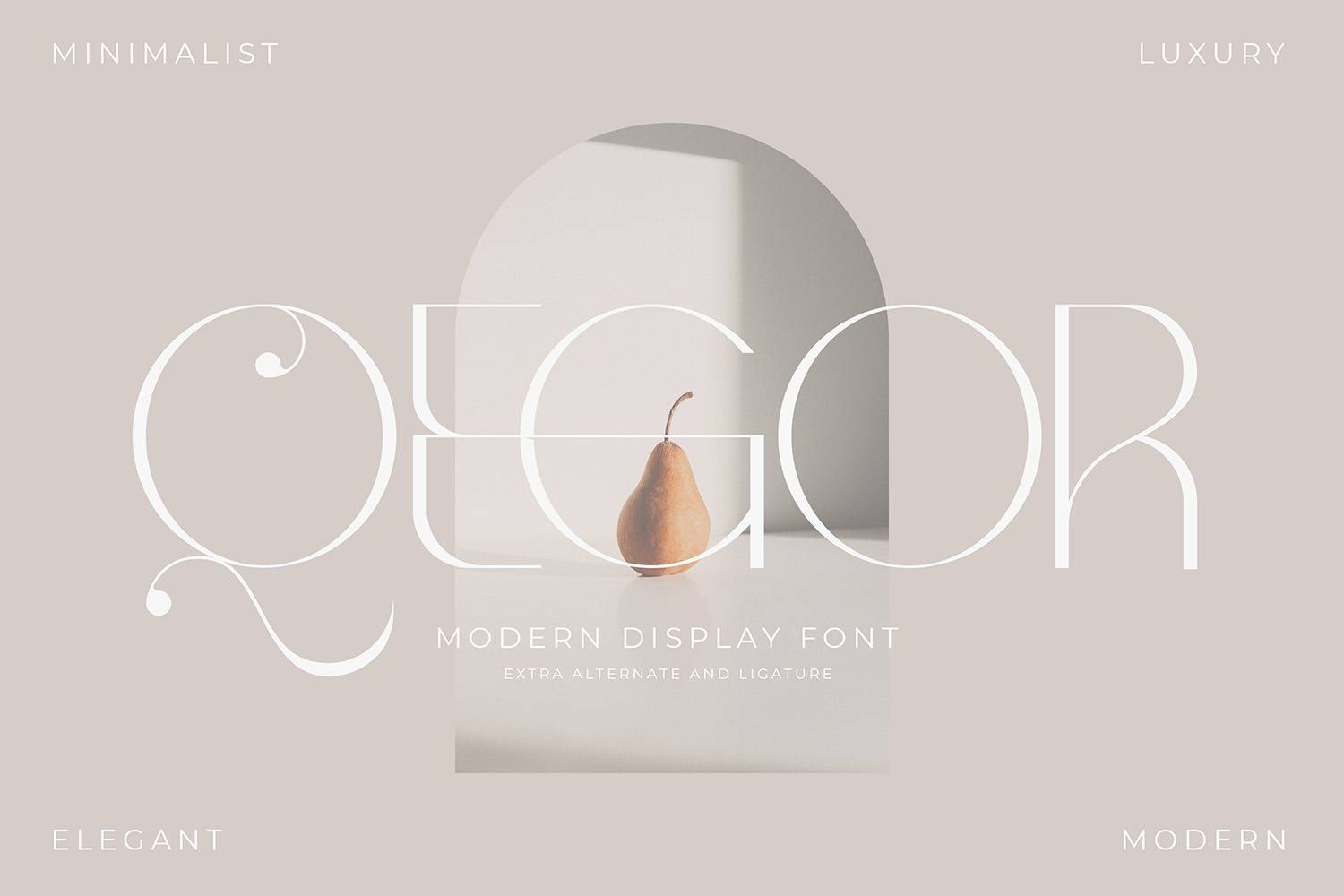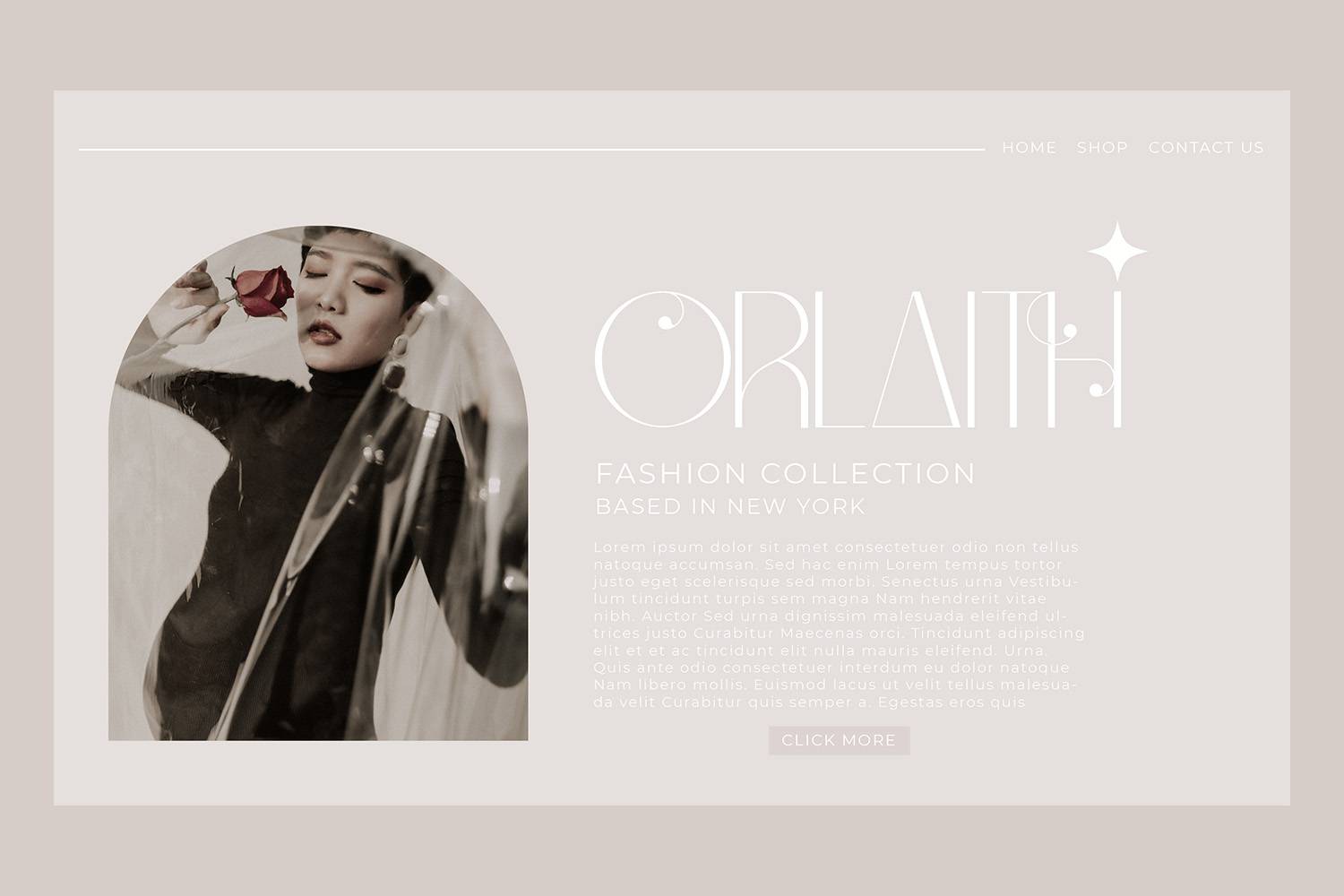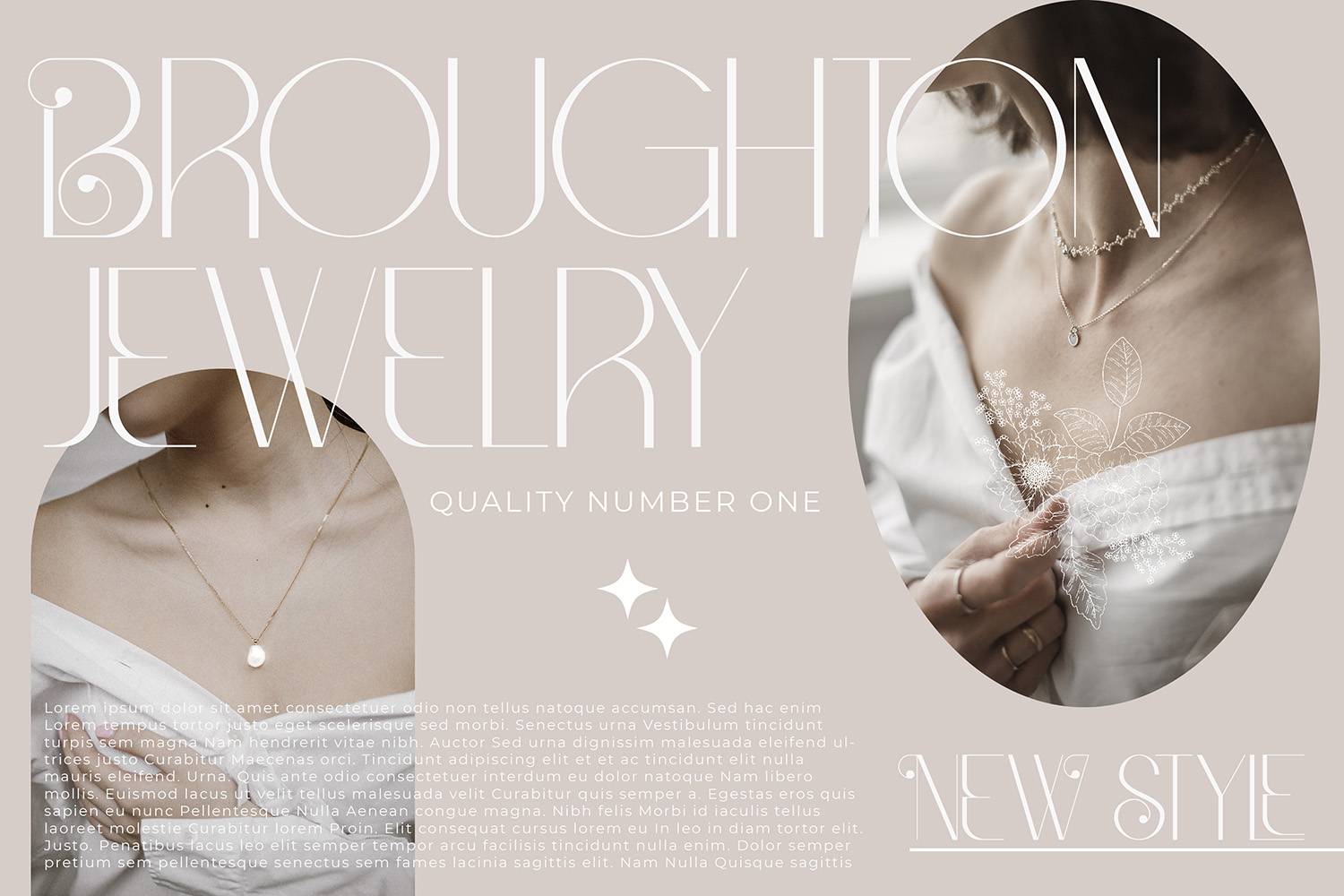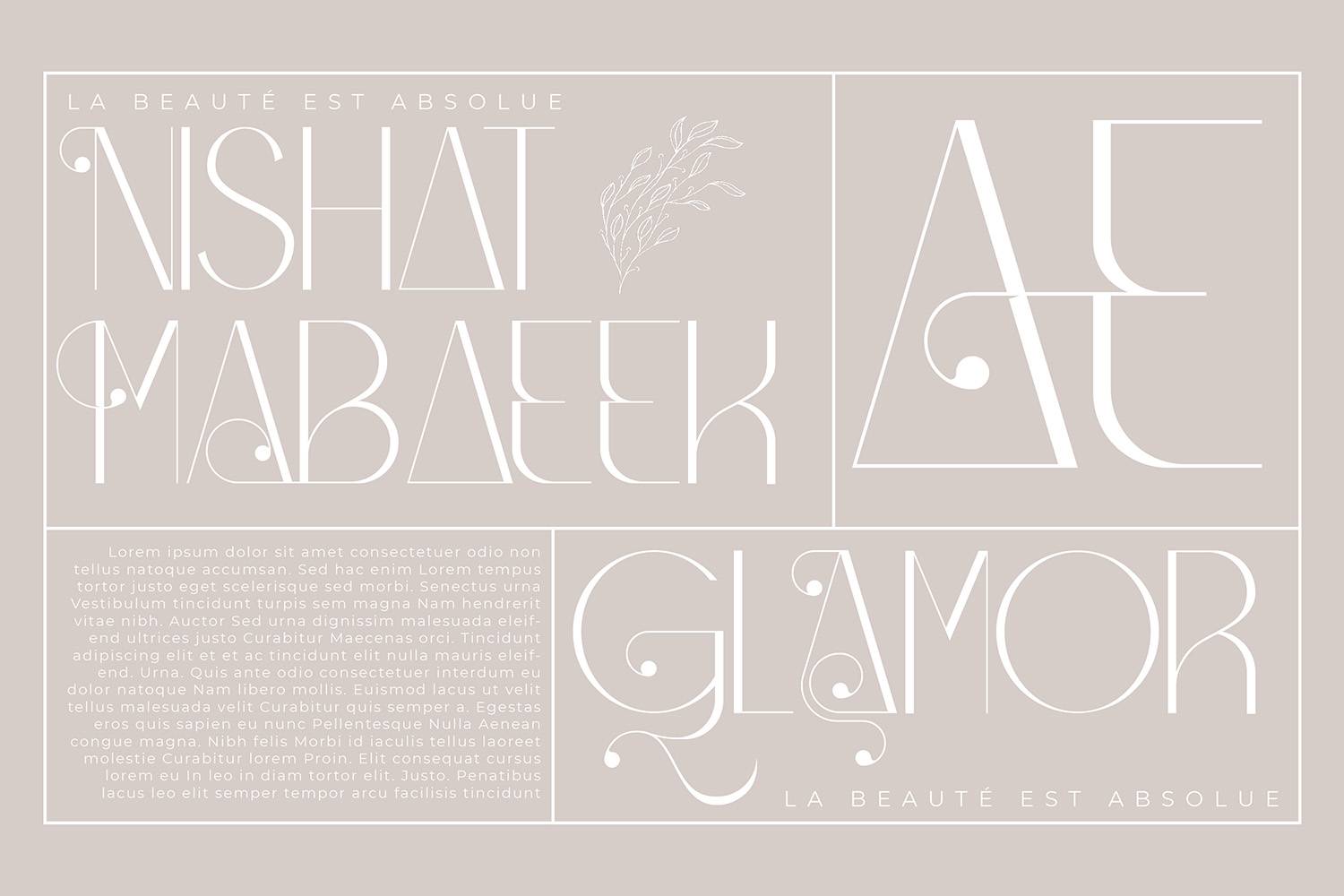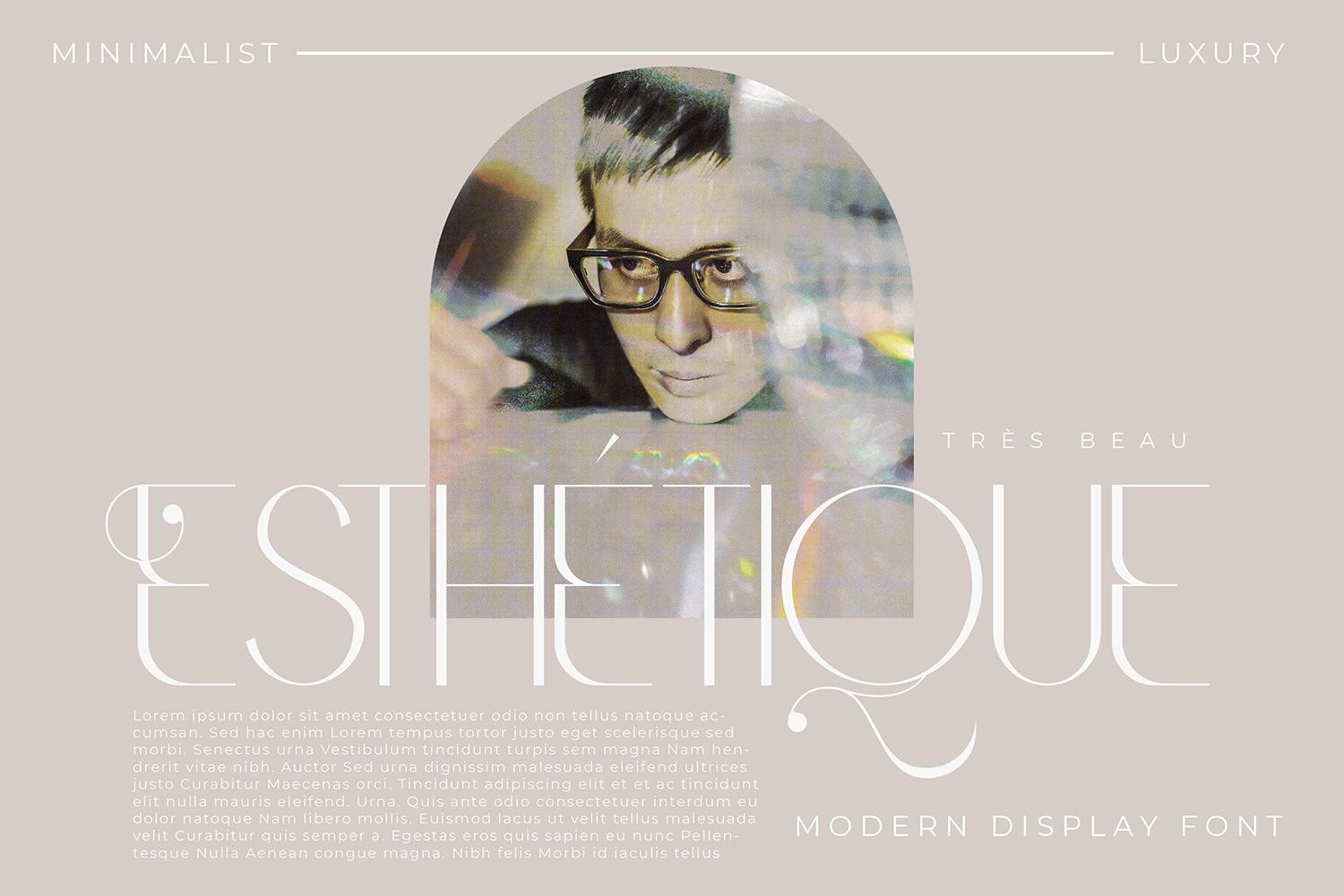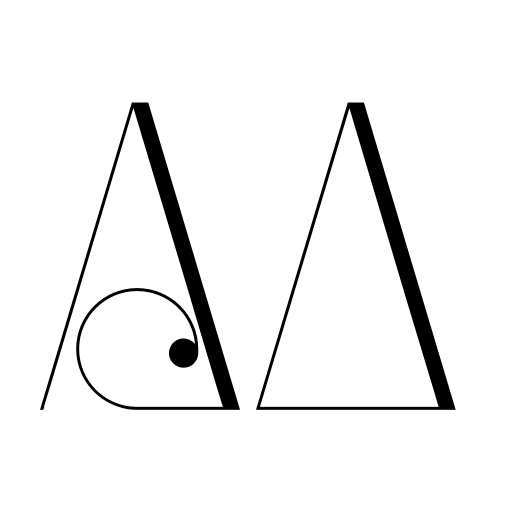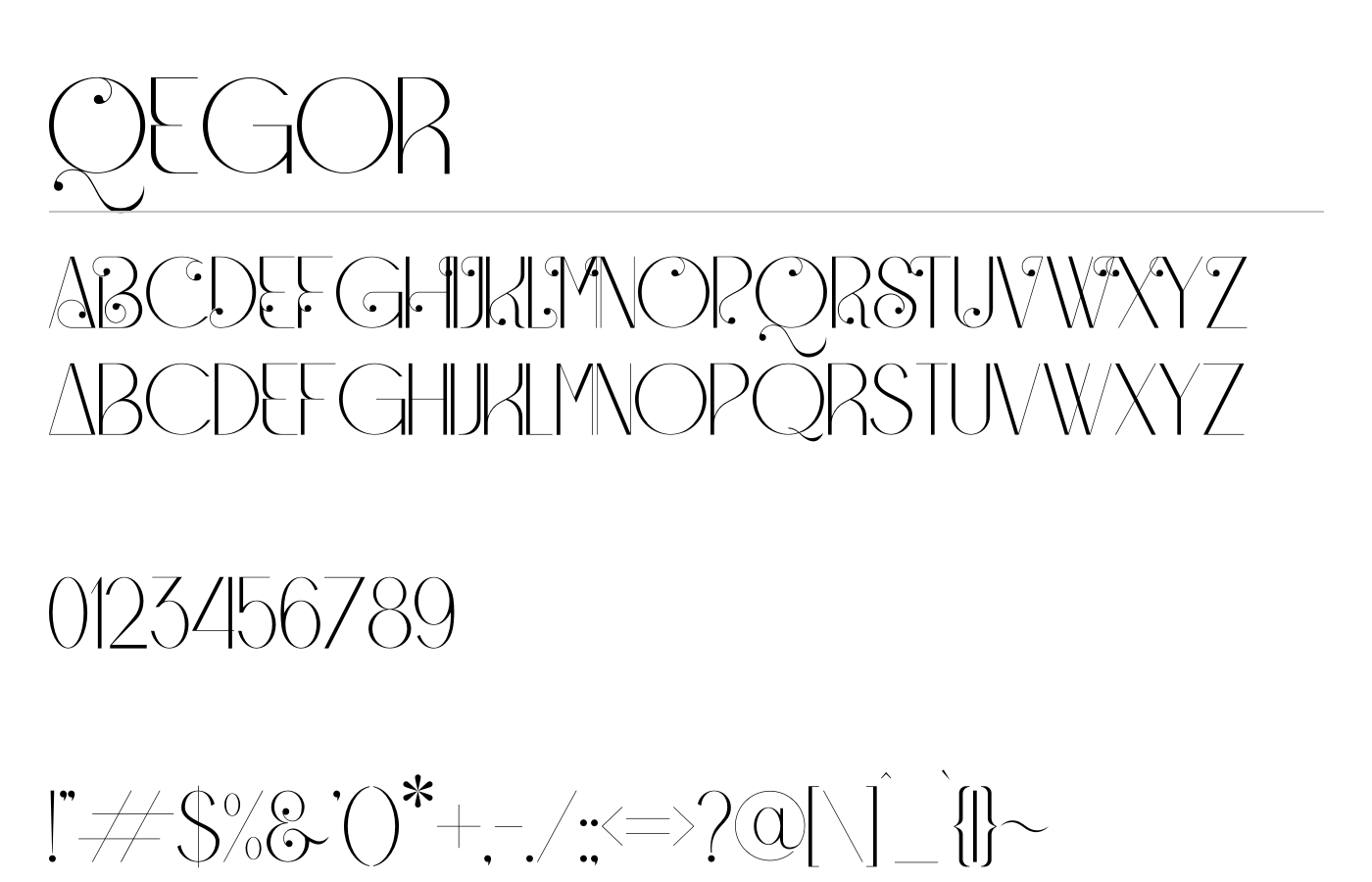
Qegor is a delicate, elegant serif font with a modern and artistic flair, characterized by its ultra-thin strokes and decorative swirls that add a unique ornamental touch. It exudes sophistication and creativity, making it ideal for high-end fashion branding, luxury editorial headlines, and stylish logos where a refined, graceful look is desired. The font’s slender forms and distinctive details create a captivating presence, perfect for designs that want to stand out with subtle elegance.
Qegor Font
About Qegor Font